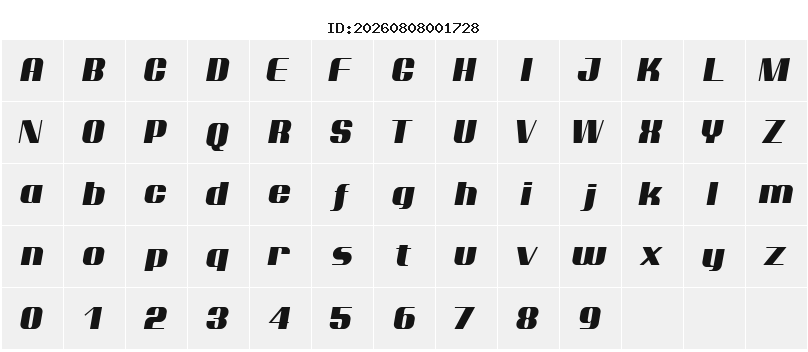
• Font Name: Ptarmigan
About Ptarmigan.ttf
Ptarmigan.ttf is a modern, elegant sans-serif font designed for ultimate readability and visual harmony. Perfect for branding, headlines, web design, and print materials.